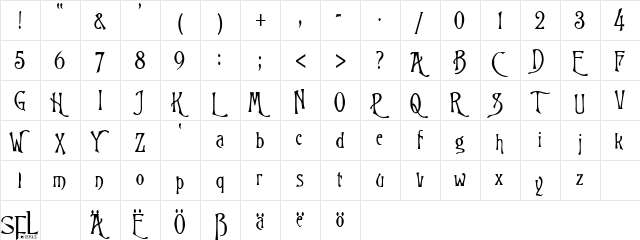
Goodfellow Regular
Design Context for Goodfellow Typeface
Goodfellow is a composed and adaptable typeface that performs quietly and consistently across a wide range of design contexts.